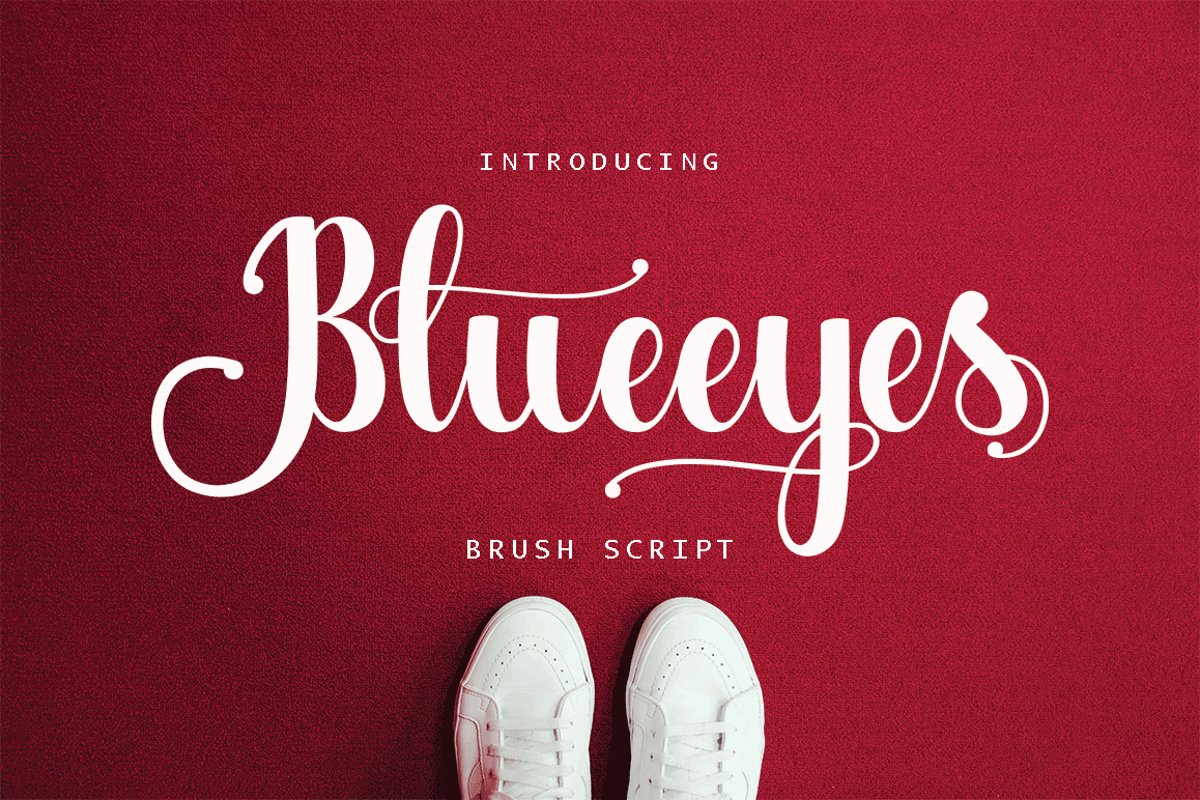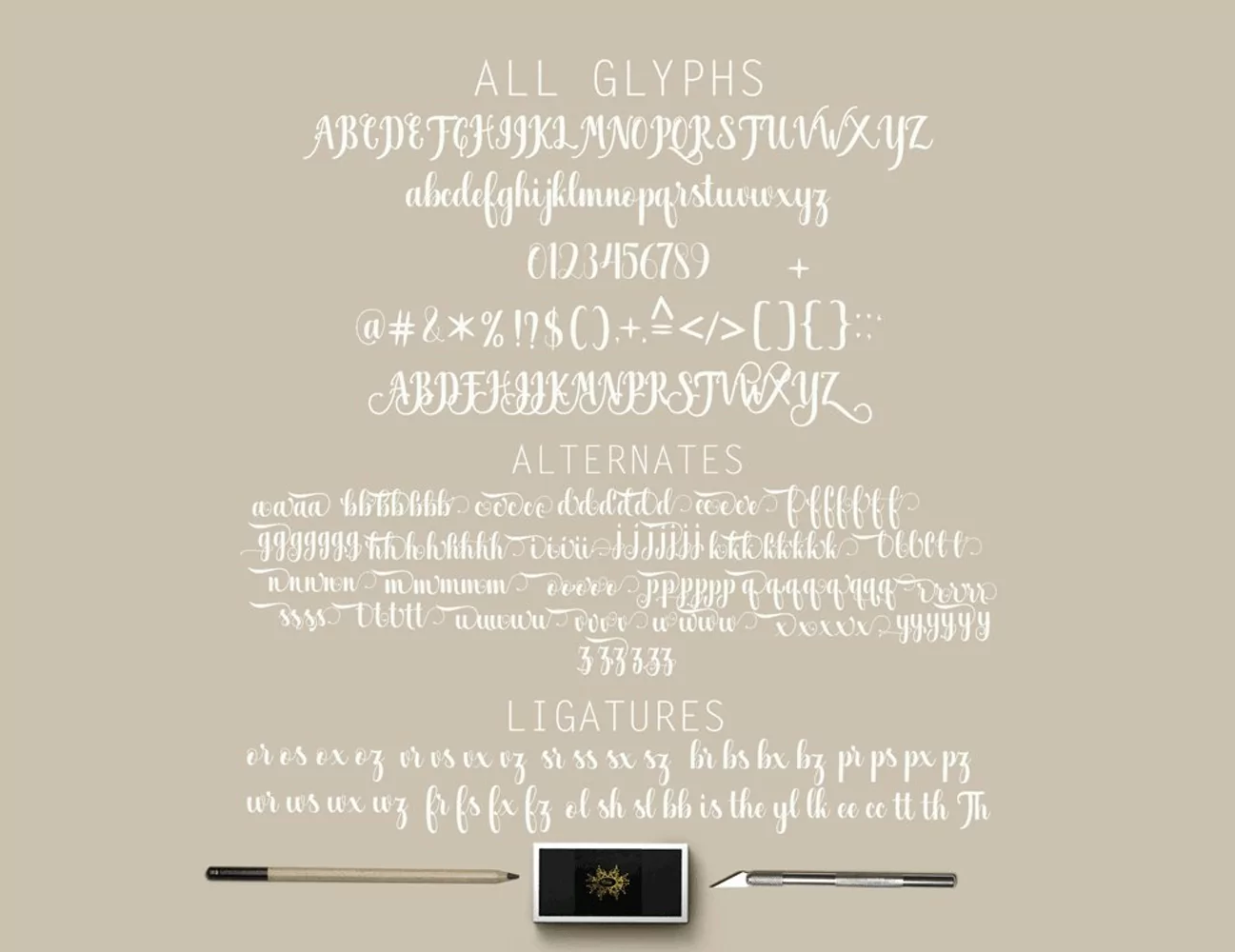
Blueeyes
Blueeyes is Modern Calligraphy. This font was designed by handwriting, and it has a modern and unique forms of calligraphy, the writing style is very natural.
Standart ligatures
Stylistic Alternates
Stylistic sets
Can be used for various purposes.such as headings, logos, wedding invitation, t-shirt, letterhead, signage, lable, news, posters, badges etc. To enable the OpenType Stylistic alternates, you need a program that supports OpenType features such as Adobe Illustrator CS, Adobe Indesign & CorelDraw X6-X7